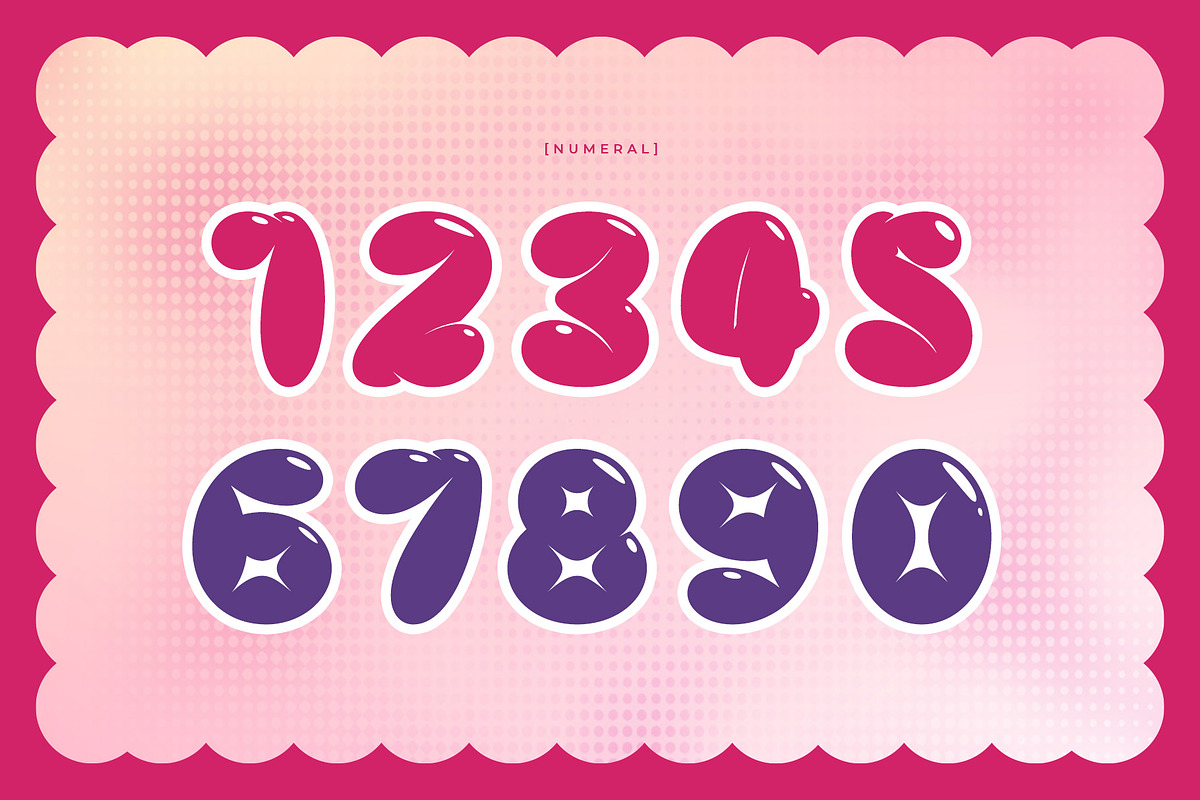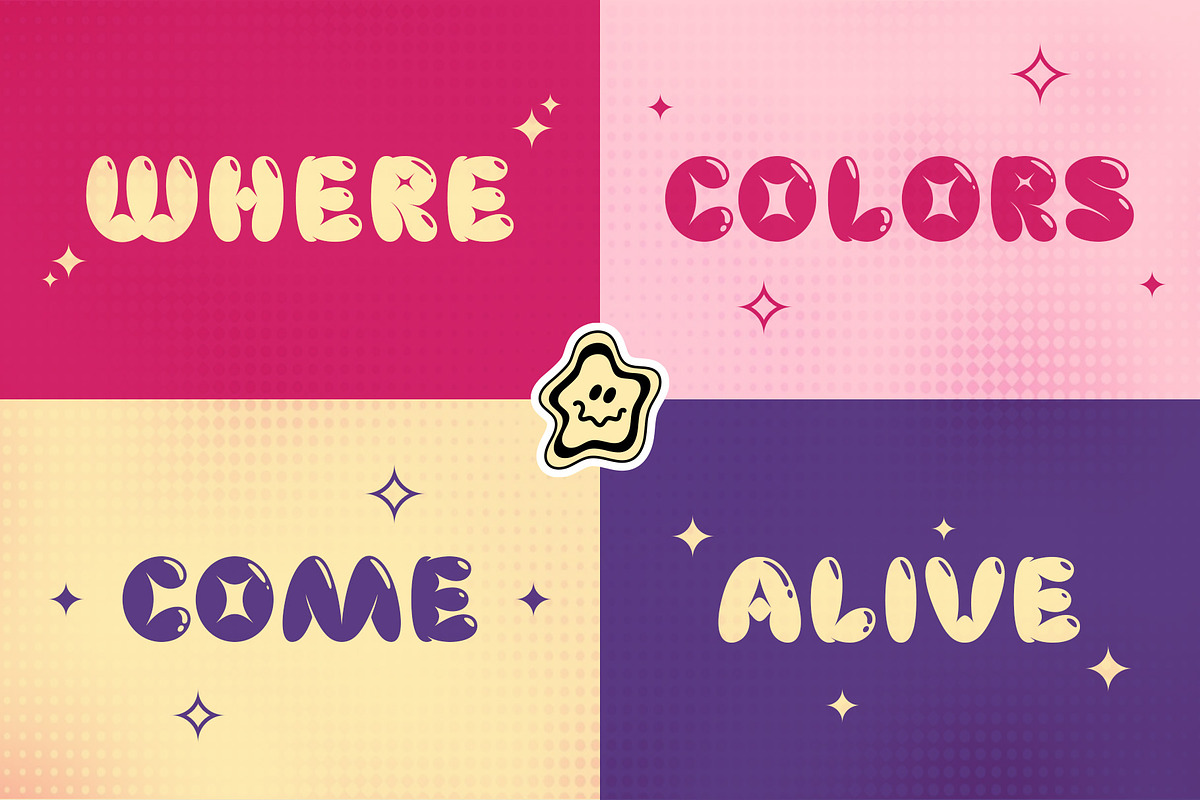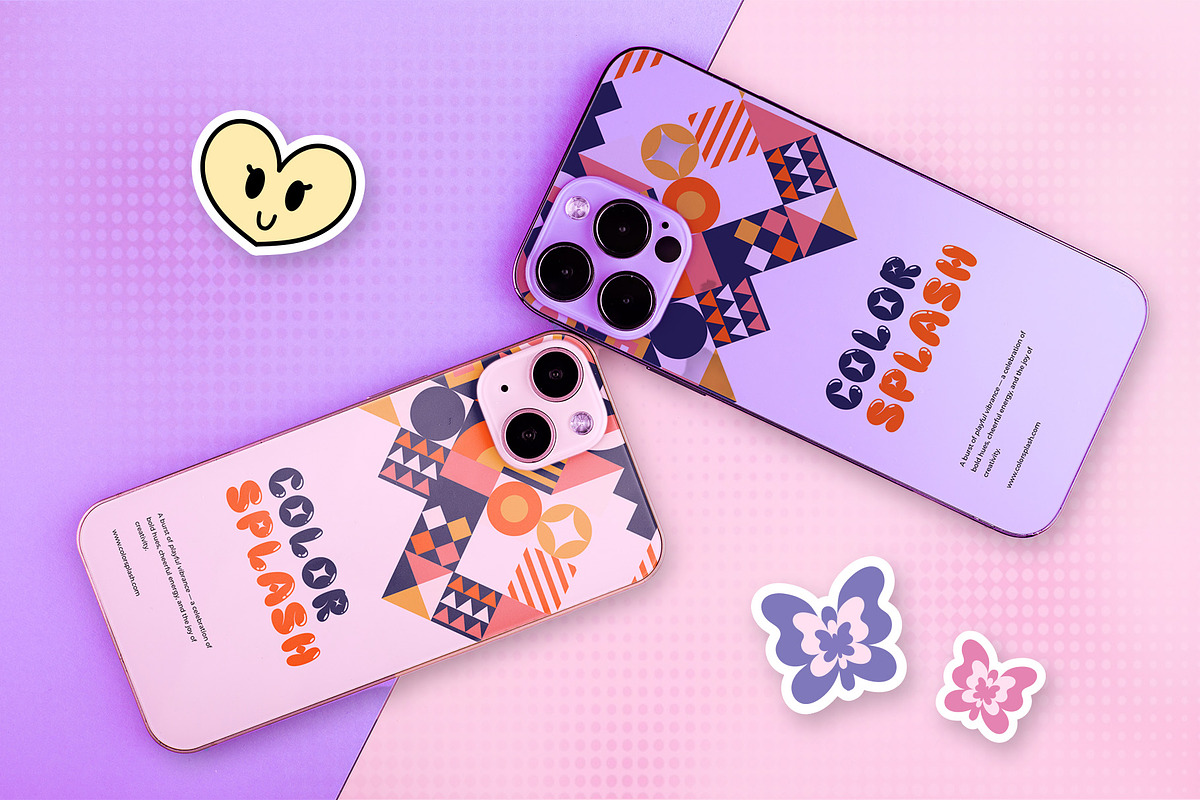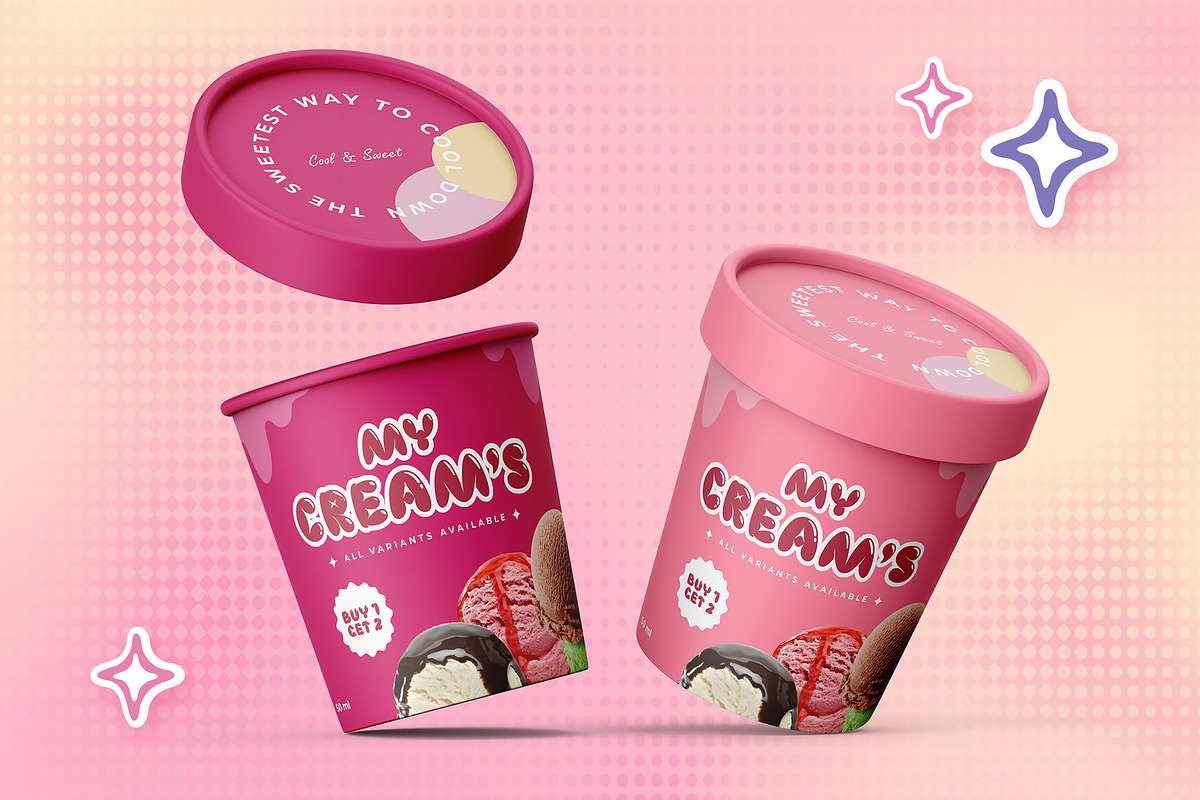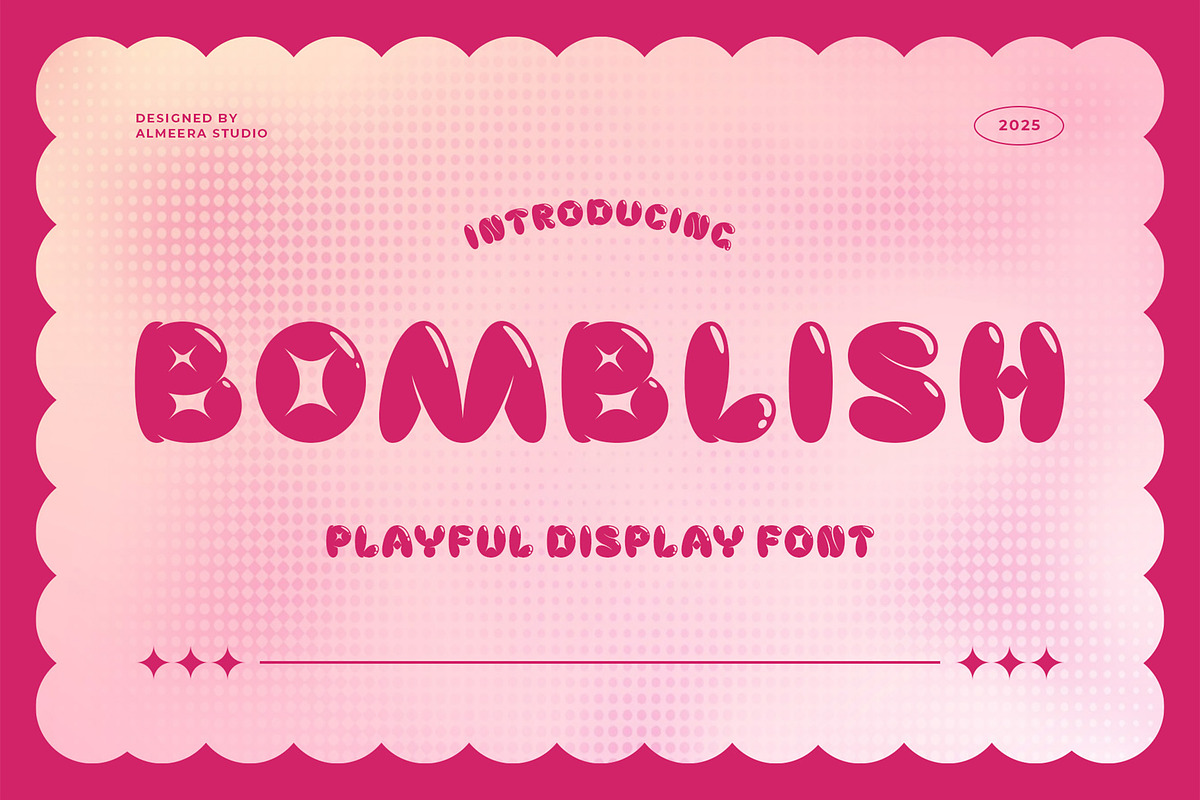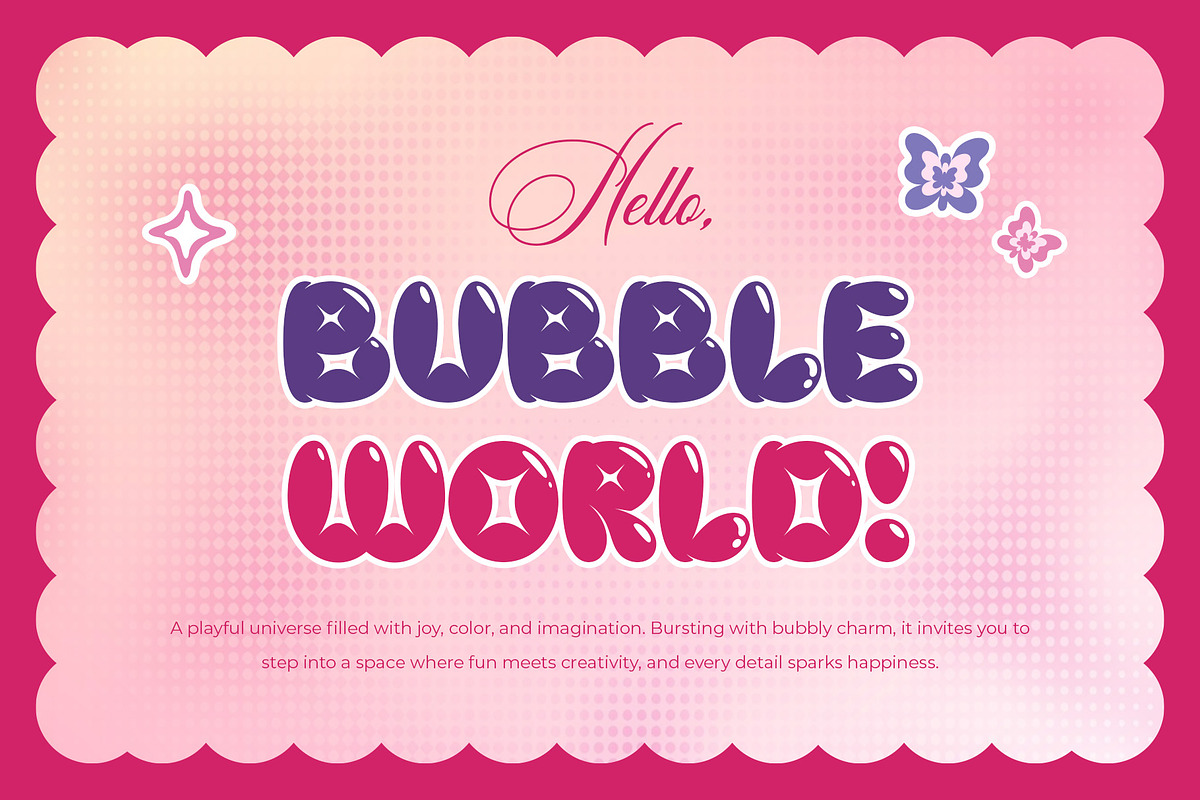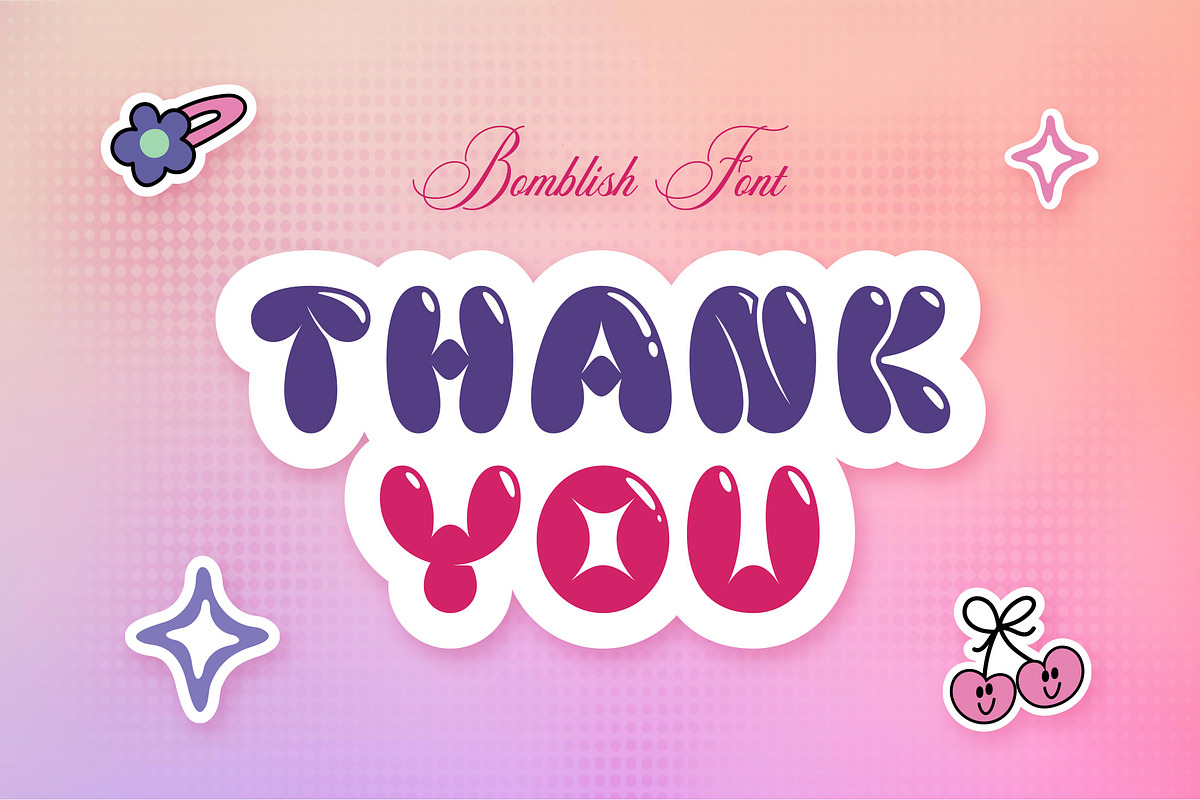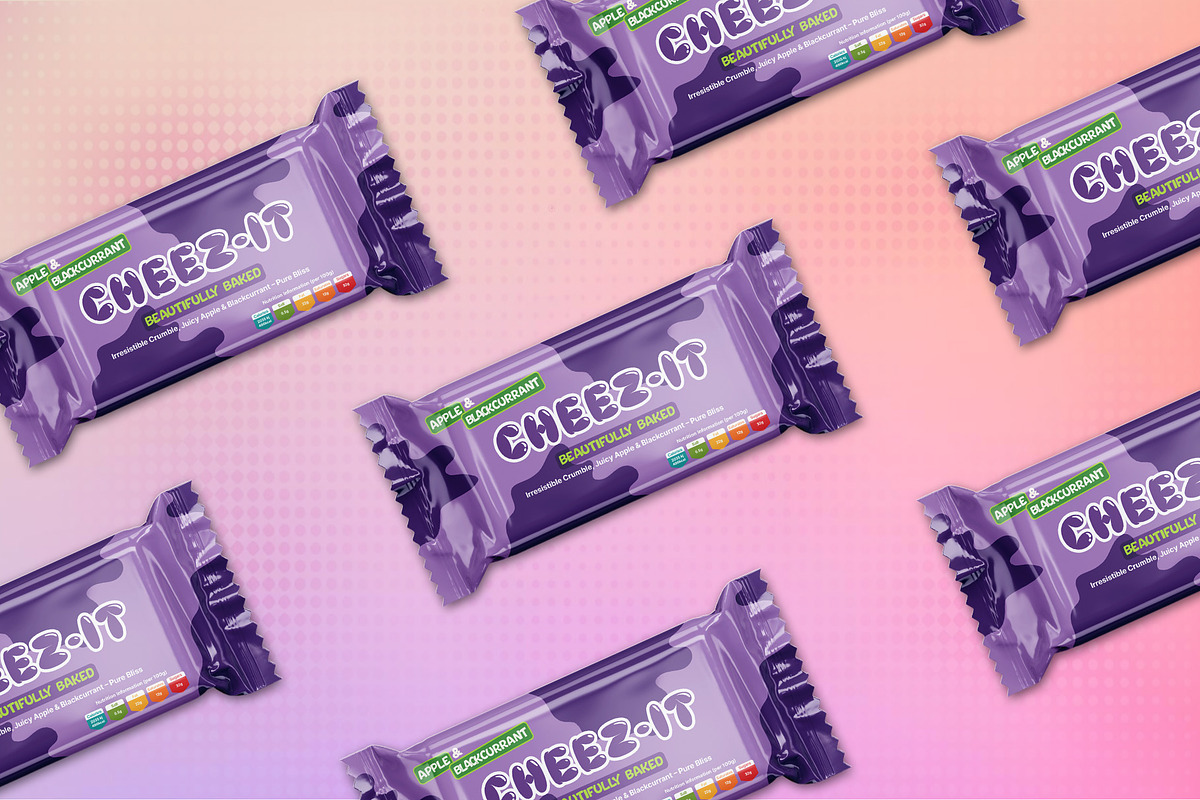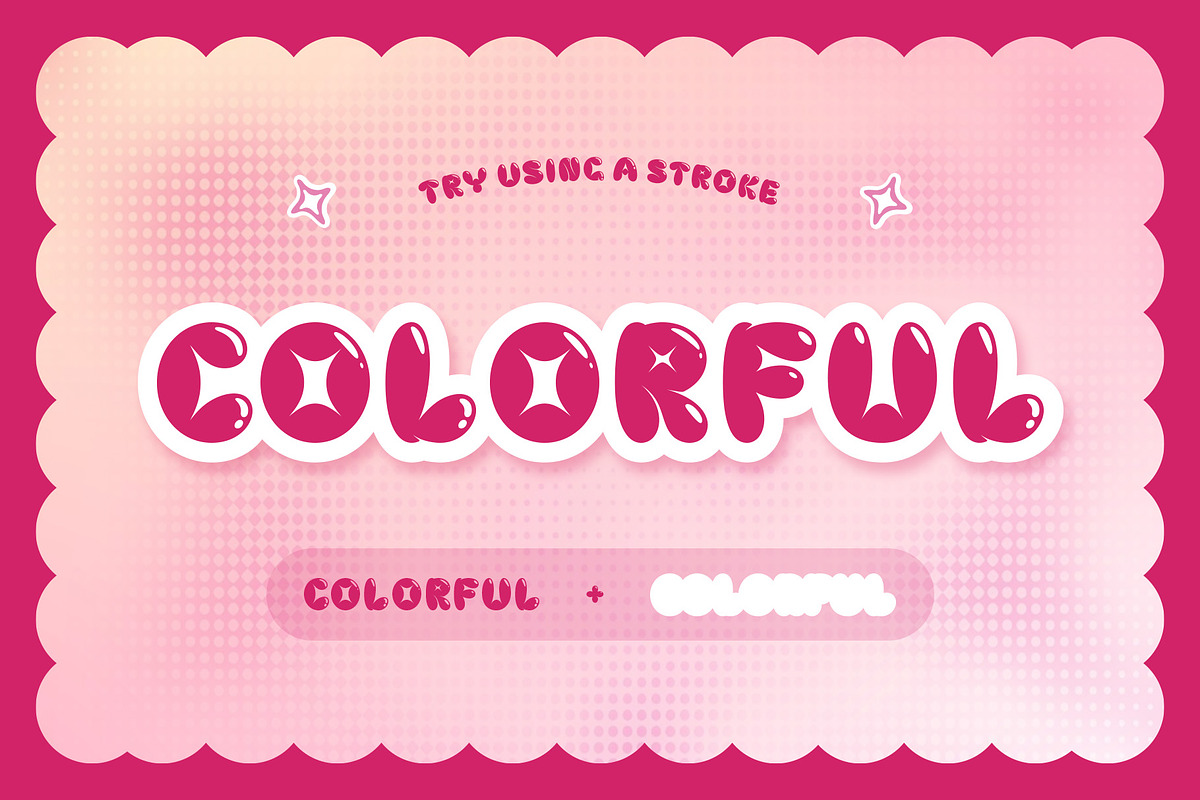
Bomblish – Playful Display Font
Bomblish is a playful display font full of fun and bubbly energy. Designed with rounded shapes and a bold personality, this font is perfect for children’s books, comic titles, packaging, posters, and playful branding. Its quirky style makes designs more joyful and approachable while staying highly readable. Ideal for projects that need a touch of fun and creativity.